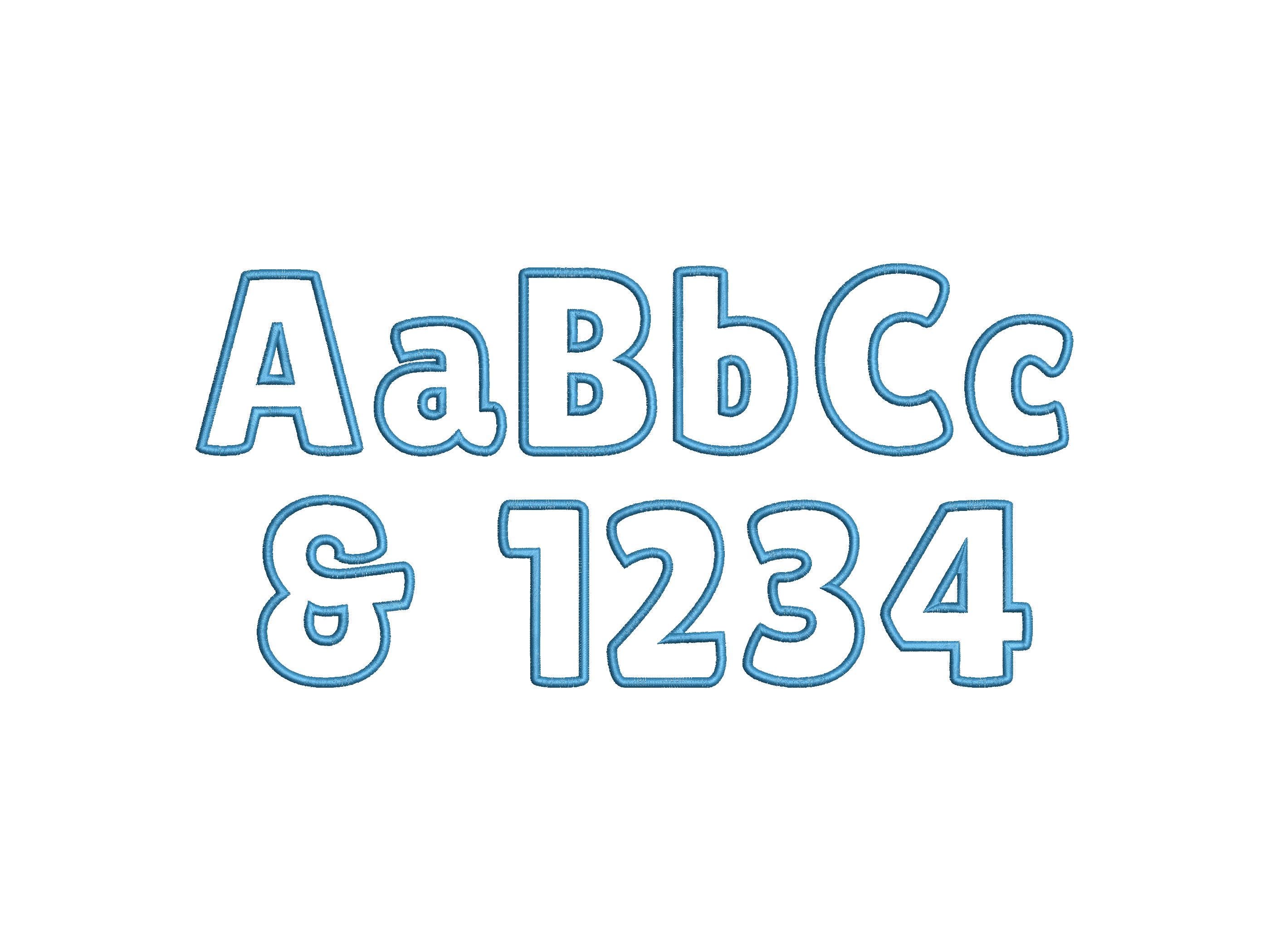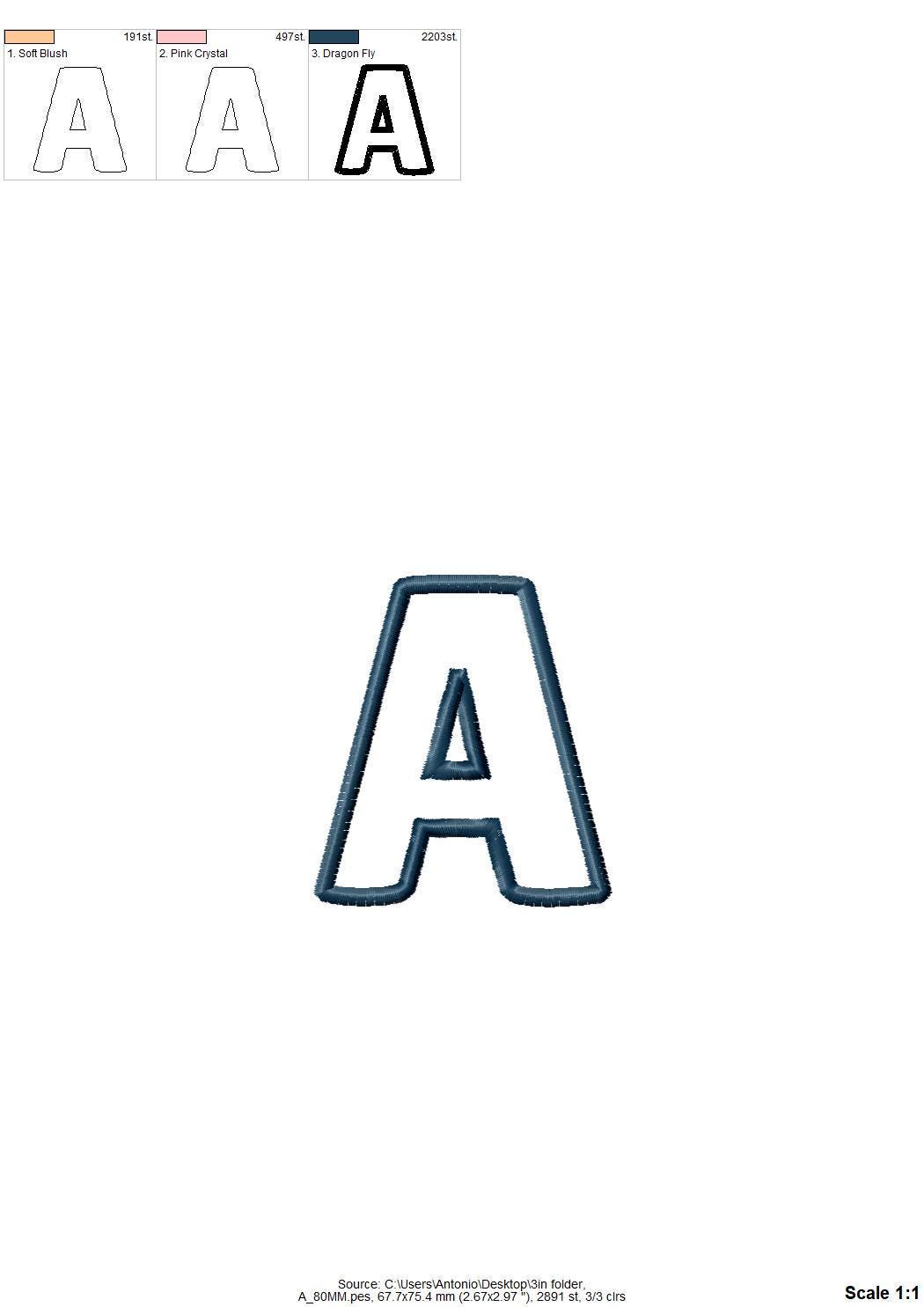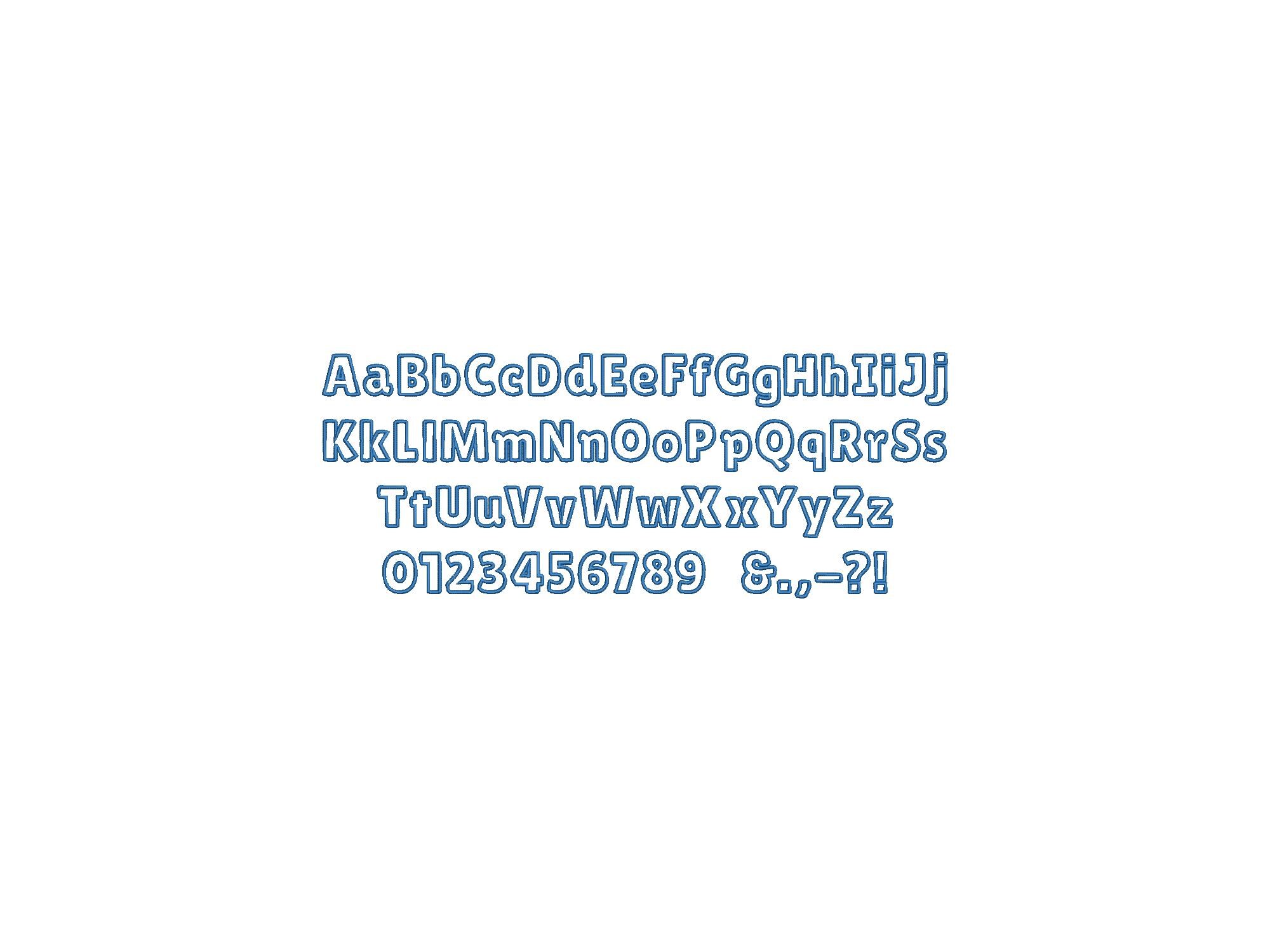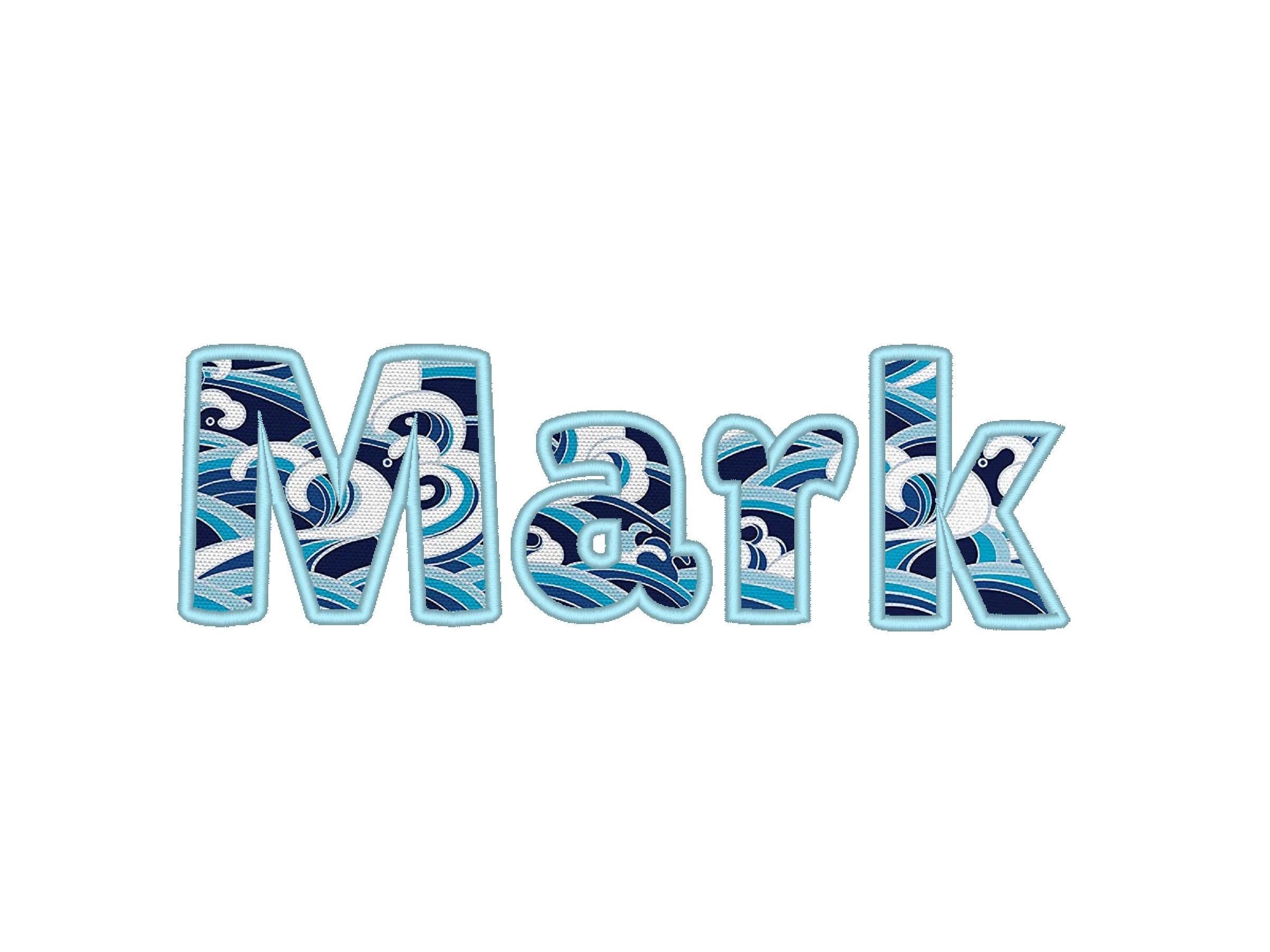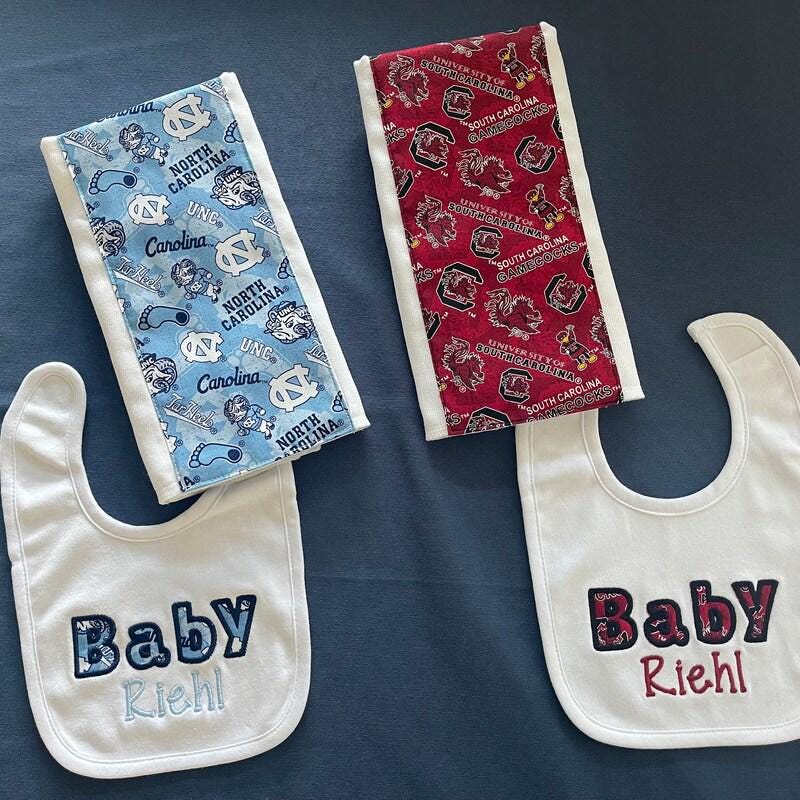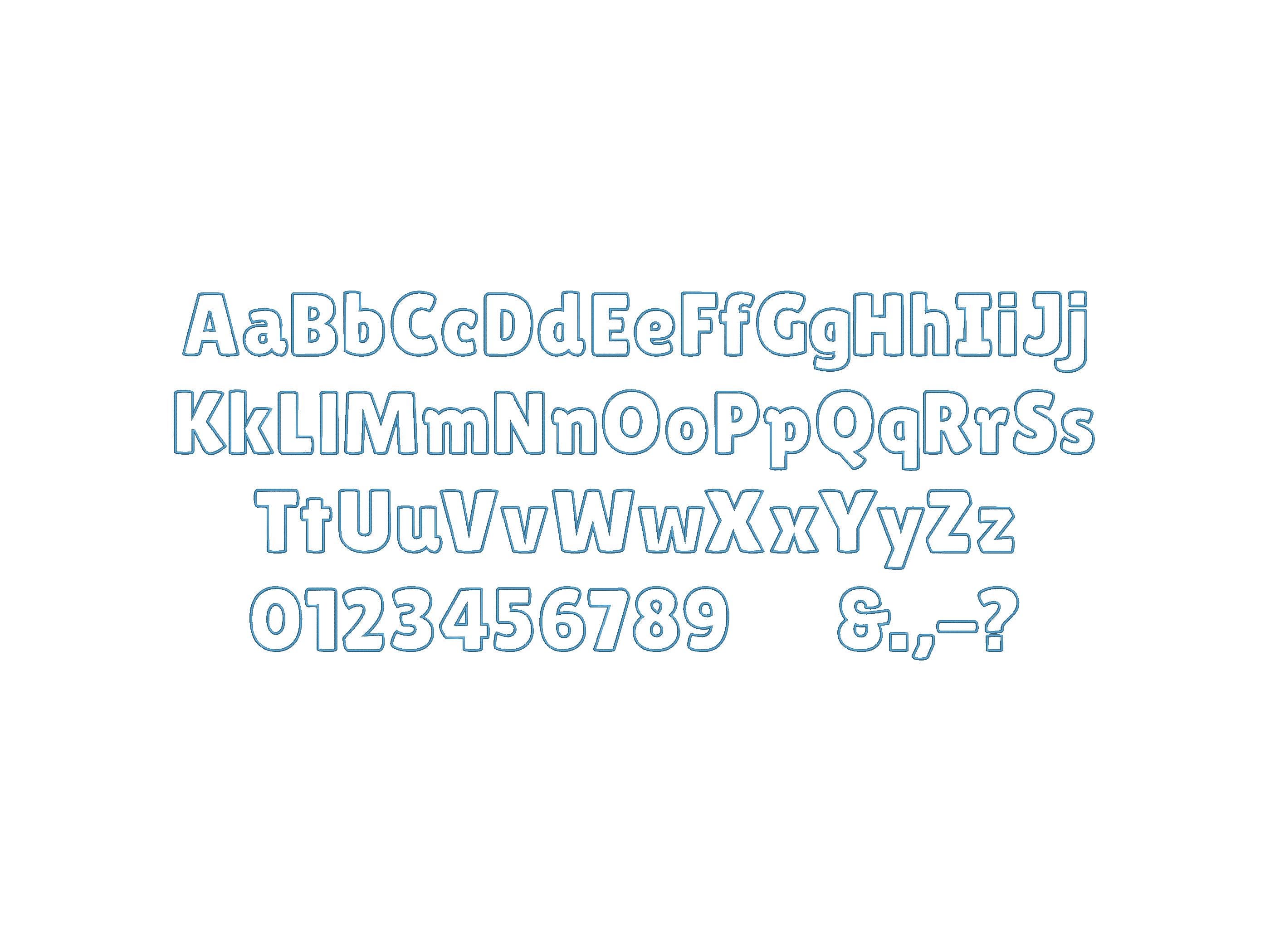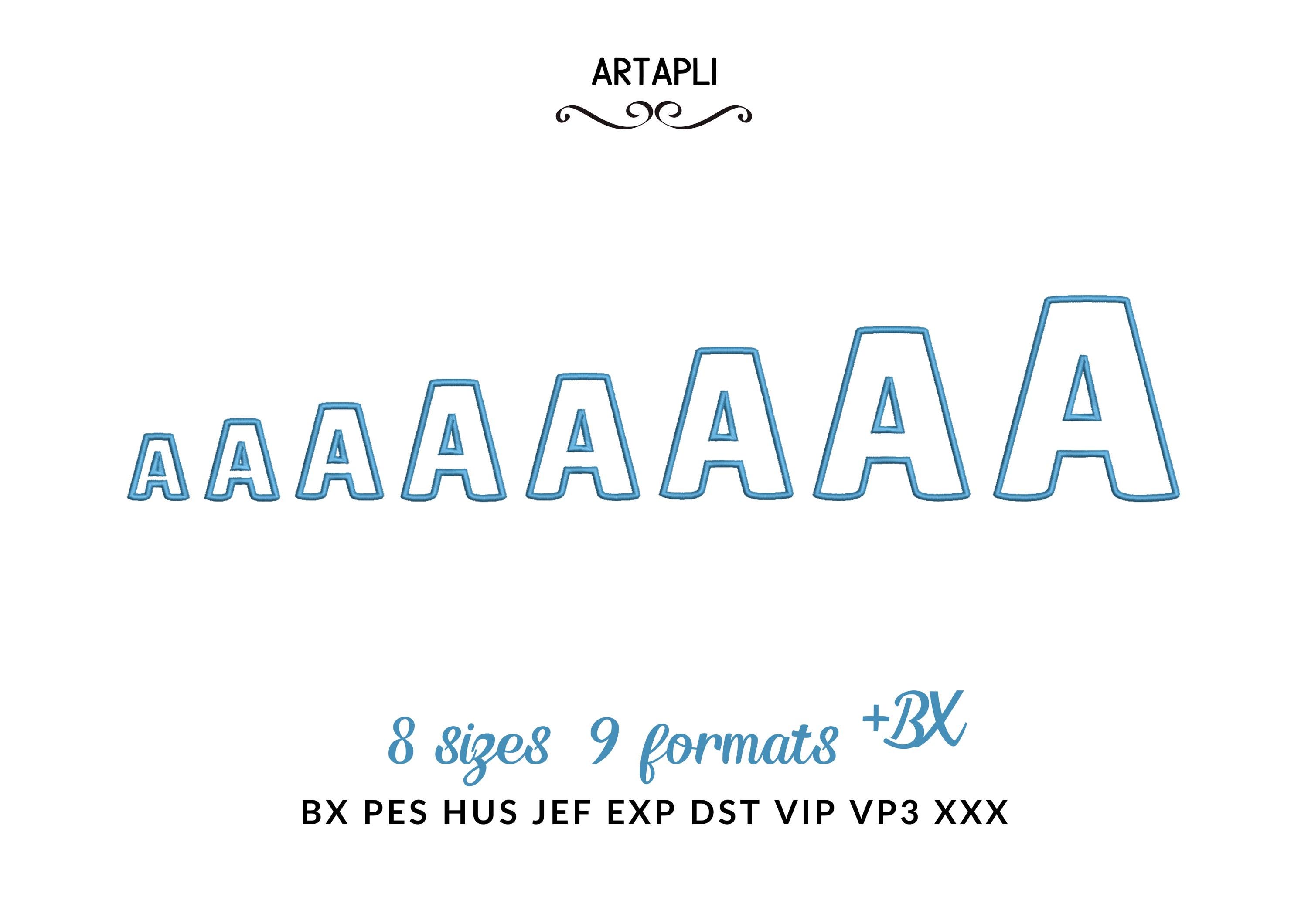
Monogram Font Applique machine embroidery designs wide satin outline alphabet monogram letters numbers many sizes 1.5 up to 4.8 inch, and BX
Applique design. The font has a nice wide satin stitch outline.
Entire alphabet uppercase and lowercase letters, numbers, and punctuation.